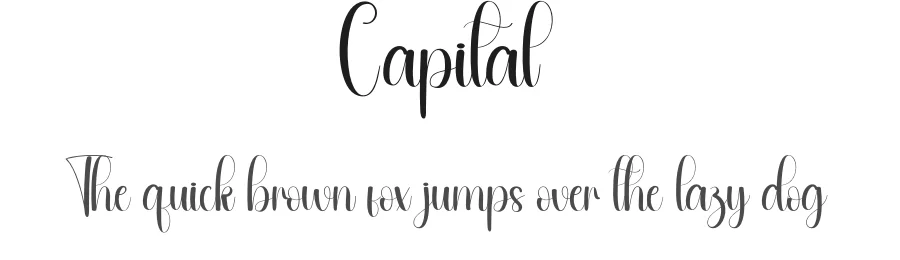
About Valuntary Font
Valuntary ships with 1 OpenType feature you can switch on in apps that support them (Illustrator, InDesign, Affinity, Figma, CSS font-feature-settings).
Valuntary Font is a script font that shines as a display or heading face. Pair it with a clean sans-serif or serif font for body text β the contrast creates a clear hierarchy while the two styles stay balanced and easy to read.
Valuntary Font